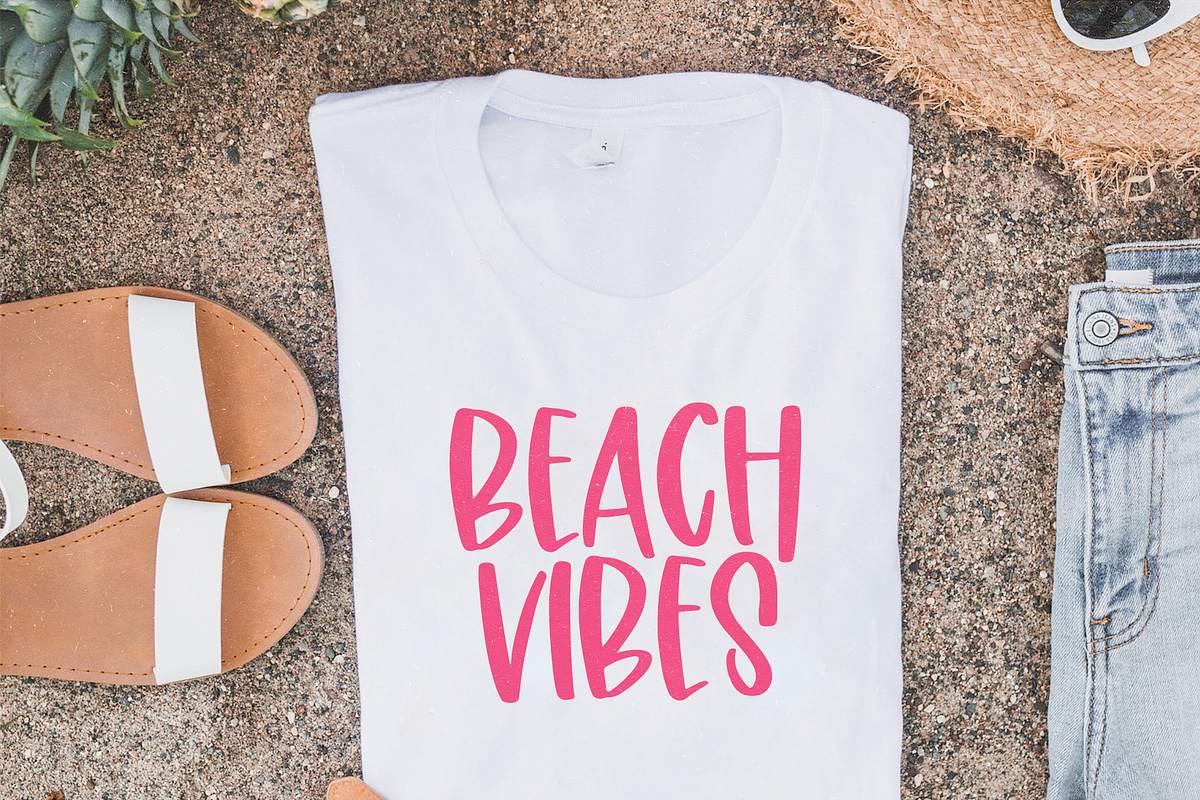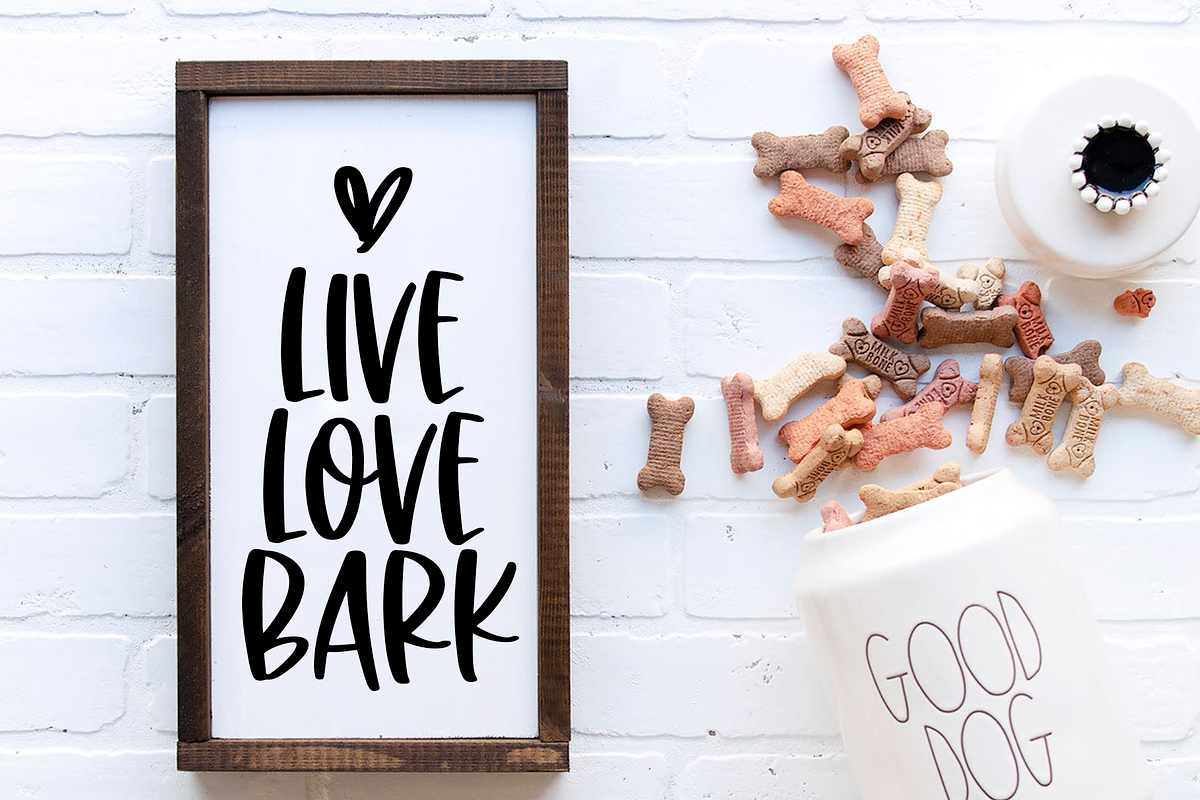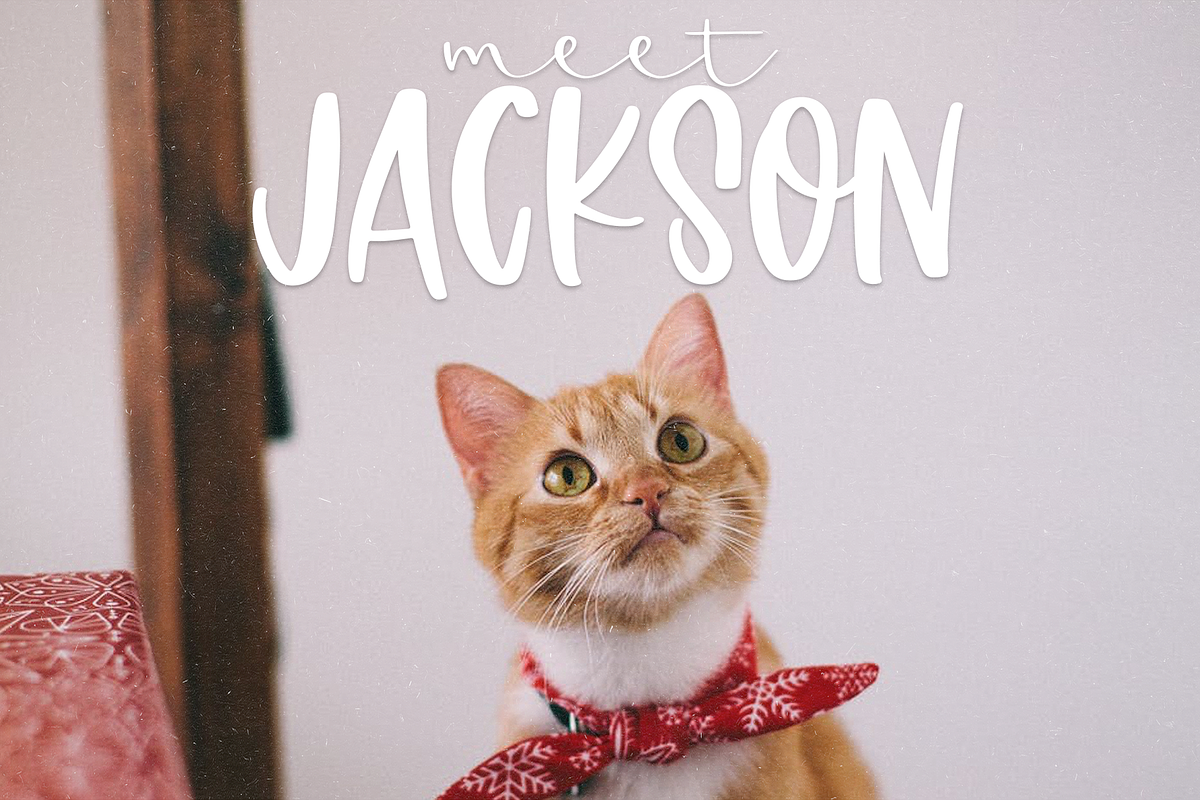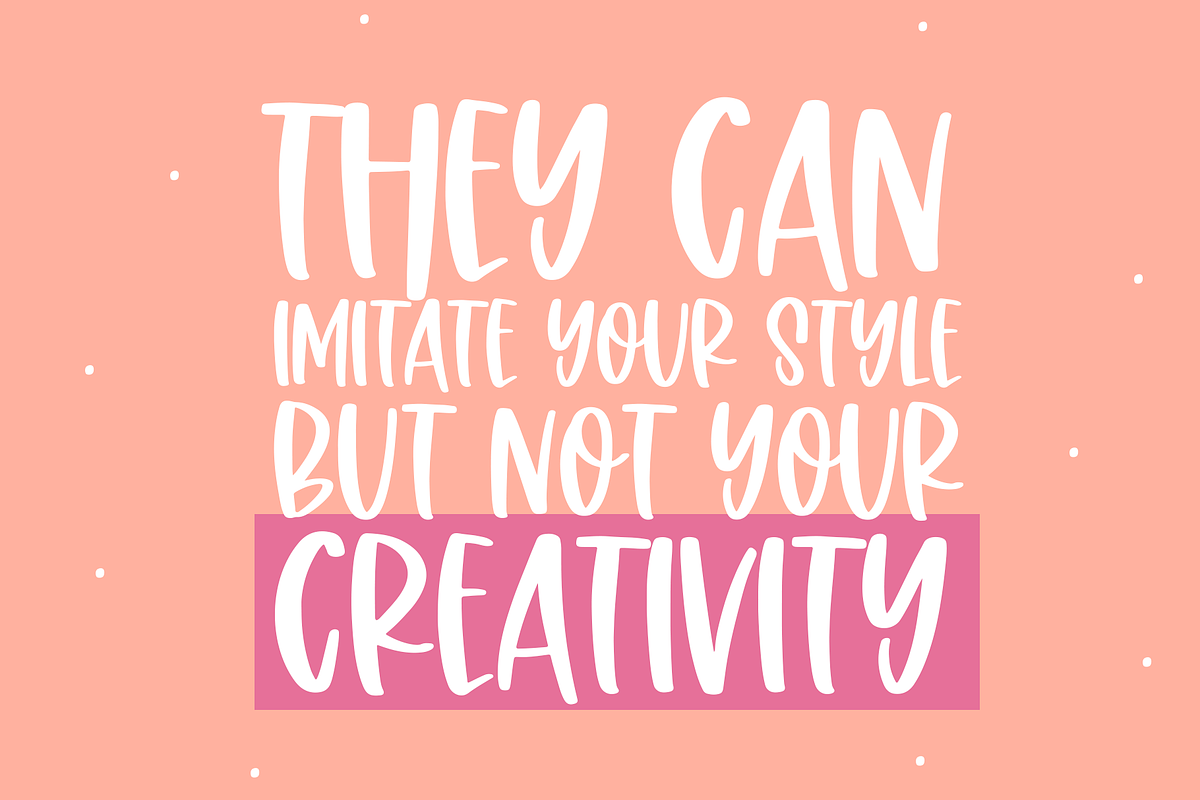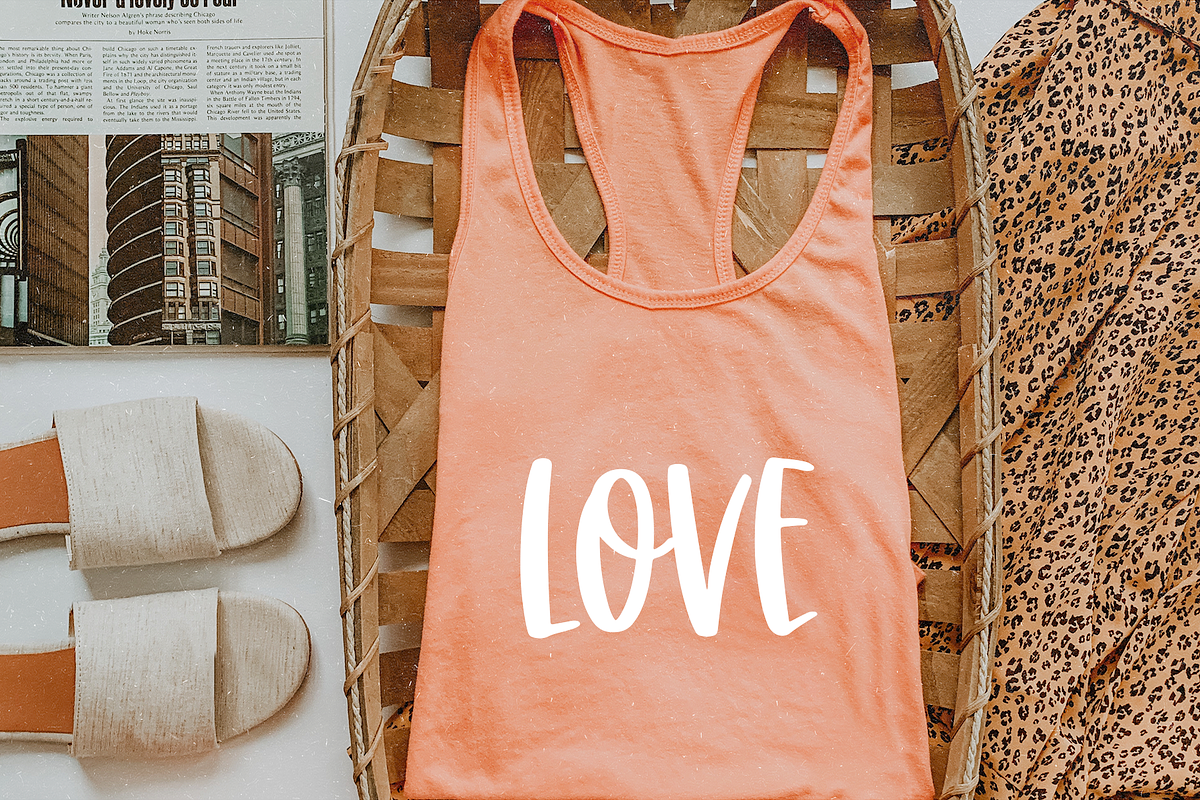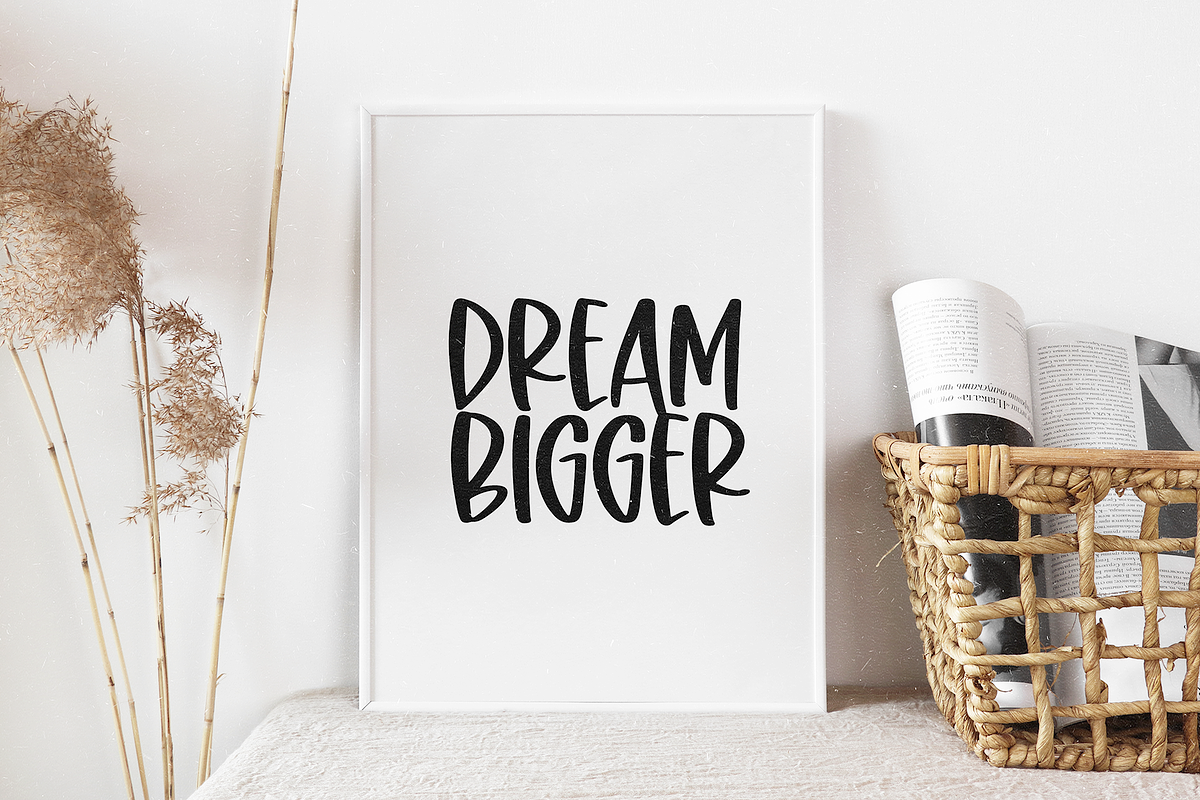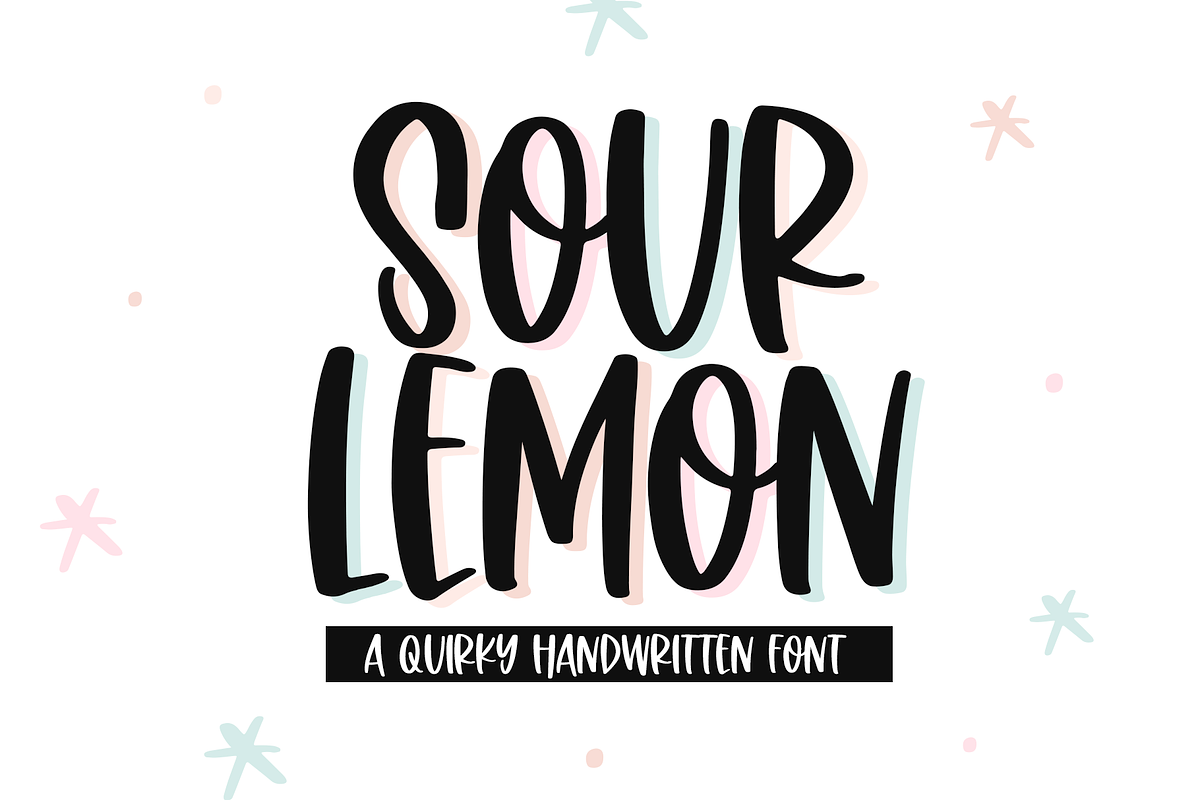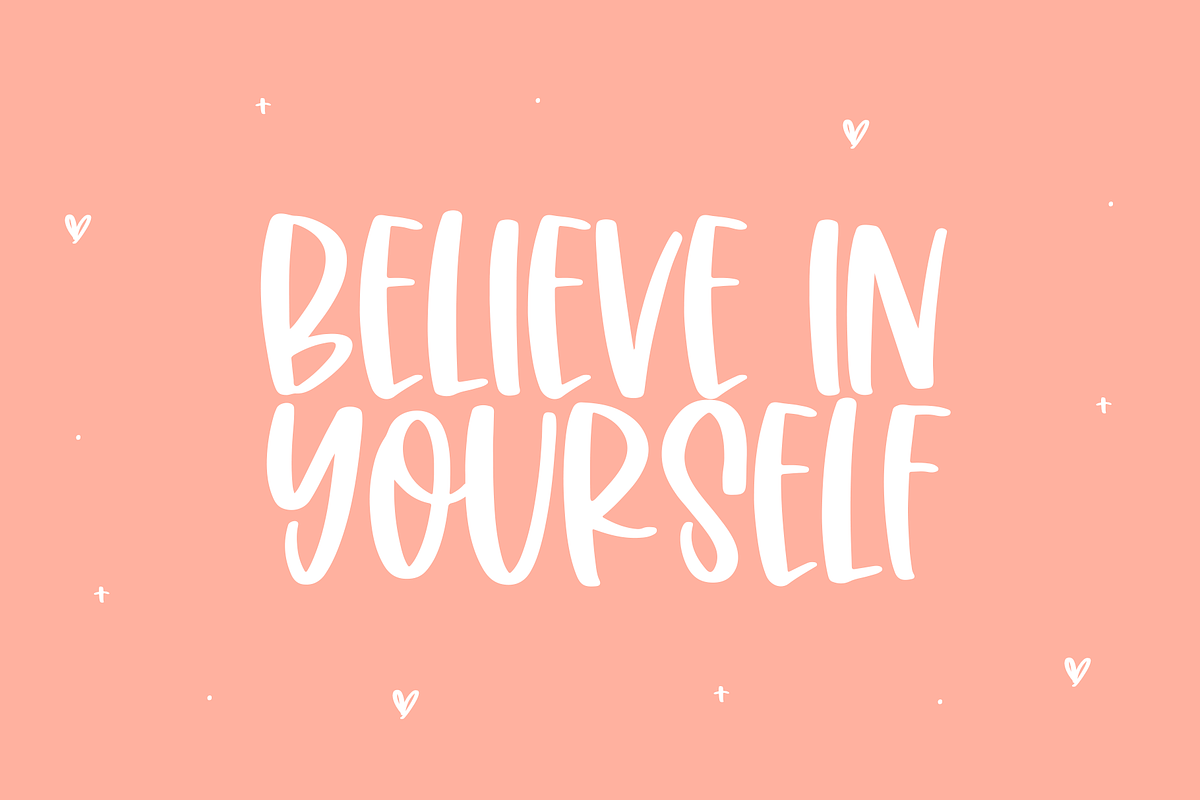
Sour Lemon | Quirky Handwritten Font
Sour Lemon is a quirky handwritten font! This is an all caps font.
This font is perfect for your craft projects, shirt designs, branding, logos, prints and more!
Sour Lemon | Quirky Handwritten Font by KA Designs fits naturally into Branding, posters, packaging, typography.